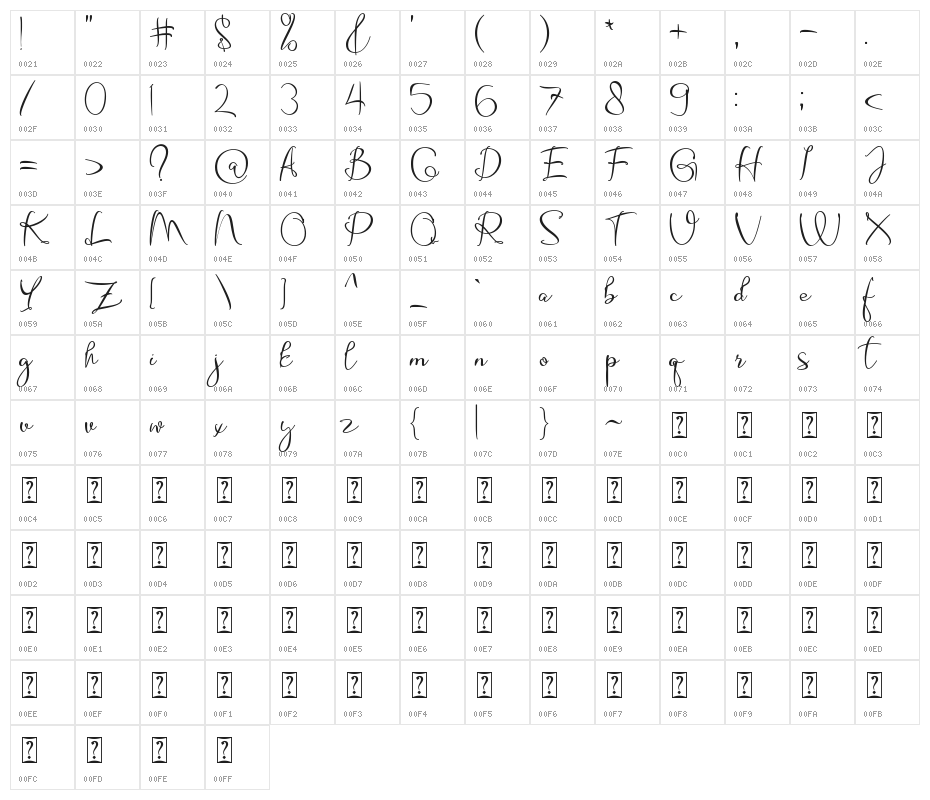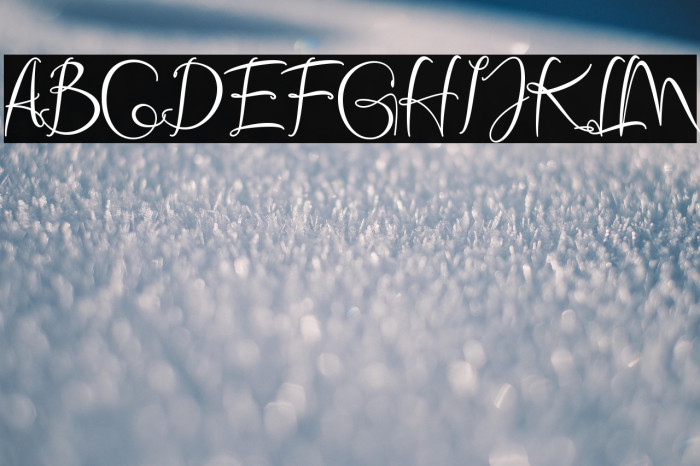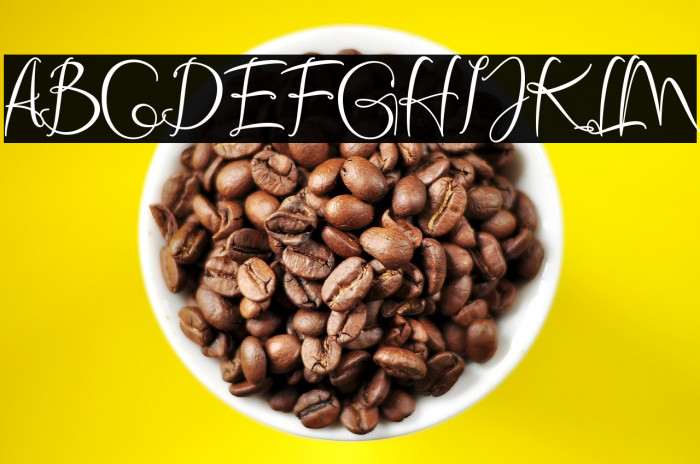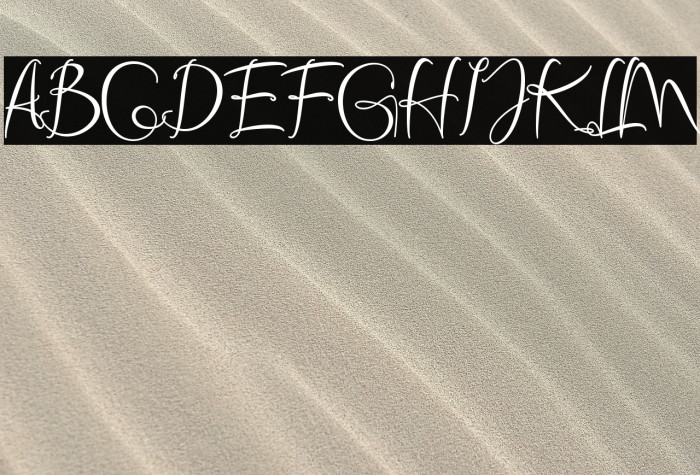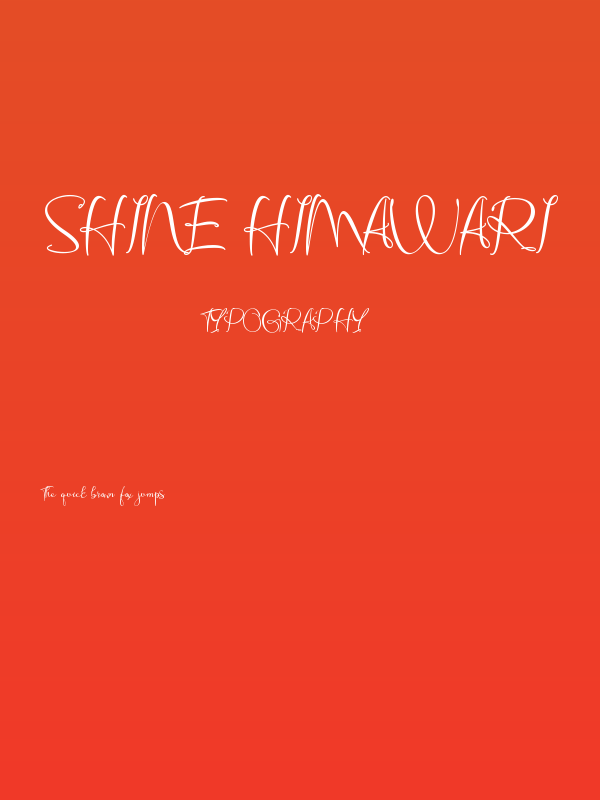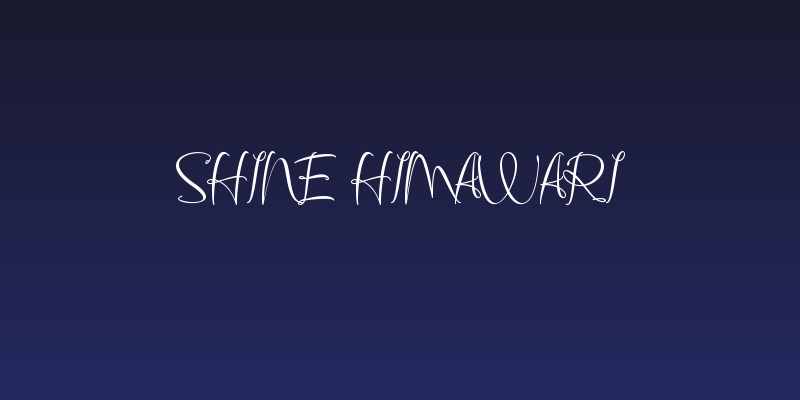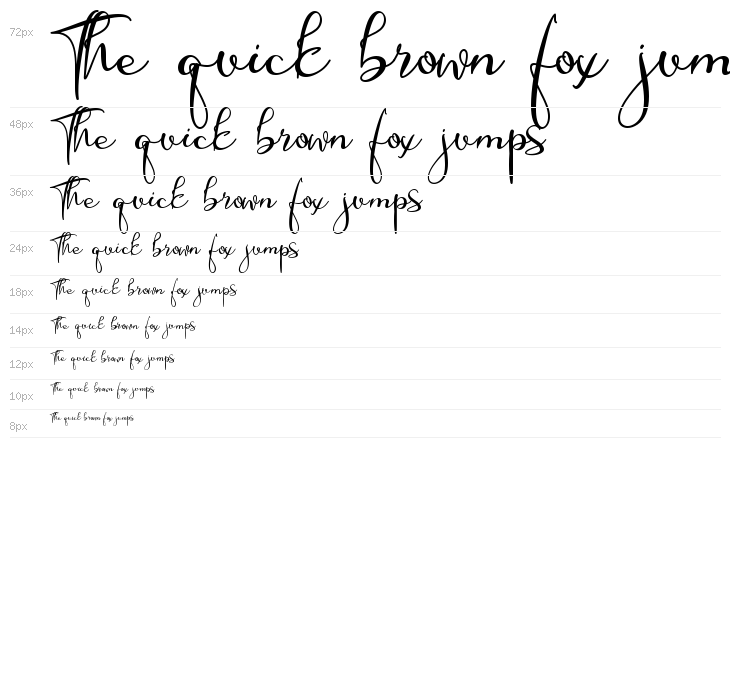
Shine Himawari Font
Shine Himawari Description
This font exudes a whimsical and artistic flair, characterized by its flowing, cursive script style. The uppercase letters are elegantly looped and connected, creating a sense of fluidity and movement. The lowercase letters maintain a consistent style, with delicate curves and loops that enhance the overall aesthetic. The numerals are uniquely styled, maintaining the script's playful nature. Special characters are creatively integrated, adding to the font's versatility. This font is perfect for projects that require a touch of elegance and creativity, such as invitations, greeting cards, or artistic branding.
| Proposed Projects | Ideal for invitations, greeting cards, artistic branding, and creative projects. |